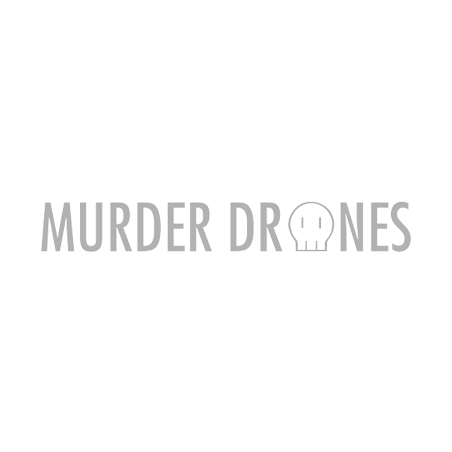
Murder Drones Font
Murder Drones is an Australian independent-animated limited-run web series produced by Glitch Productions. The pilot episode premiered on Glitch’s YouTube channel on October 29, 2021. The series follows sentient worker drones trying to survive against murderous disassembly drones on an abandoned planet, blending dark humor, sci-fi horror, and action.
The Murder Drones logo was designed using Futura Medium Condensed, with a customized "O." Additionally, fonts such as Codename Coder 4F, Modern DOS 8X14 by Jayvee Enaguas, and Silkscreen by Jason Aleksandr Kottke have been spotted in their videos.